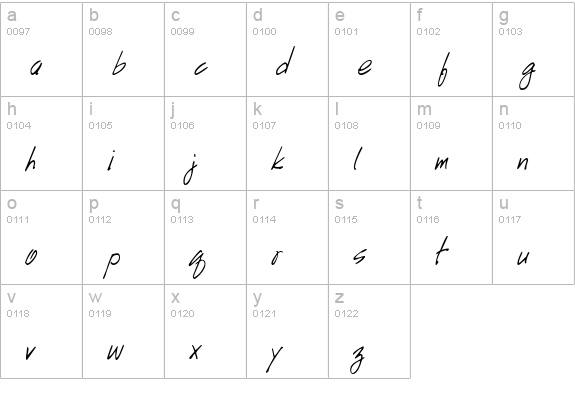
HandScriptUpright Italic Font Details
HandScriptUpright Italic is a distinctive, italic variant in the HandScriptUpright typeface family \xE2\x80\x94 well suited to design and typography projects.
HandScriptUpright Italic font is a beautiful and versatile typeface that combines the elegance of handwriting with a touch of sophistication. Its slanted and upright strokes create a unique and dynamic appearance, making it perfect for a wide range of design projects. This font exudes a sense of creativity and individuality, with its delicate curves and graceful lines. It adds a personal and charming touch to any text, whether it is used for invitations, branding, or editorial design. The HandScriptUpright Italic font is meticulously crafted to ensure legibility, even at smaller sizes. Its characters are carefully designed to maintain clarity and readability, making it an ideal choice for both print and digital applications. One of the best things about HandScriptUpright Italic font is that it is available for free download at FontsMarket.com. This means that you can easily access this font and start using it in your projects without any cost. It's a fantastic opportunity to enhance your designs and give them a unique and stylish flair. Whether you are a professional designer or someone looking to add a special touch to personal projects, HandScriptUpright Italic font is a must-have. Its combination of elegance, versatility, and affordability make it a valuable addition to any font library. Don't miss out on the chance to elevate your designs with this stunning typeface – download HandScriptUpright Italic font for free at FontsMarket.com today.